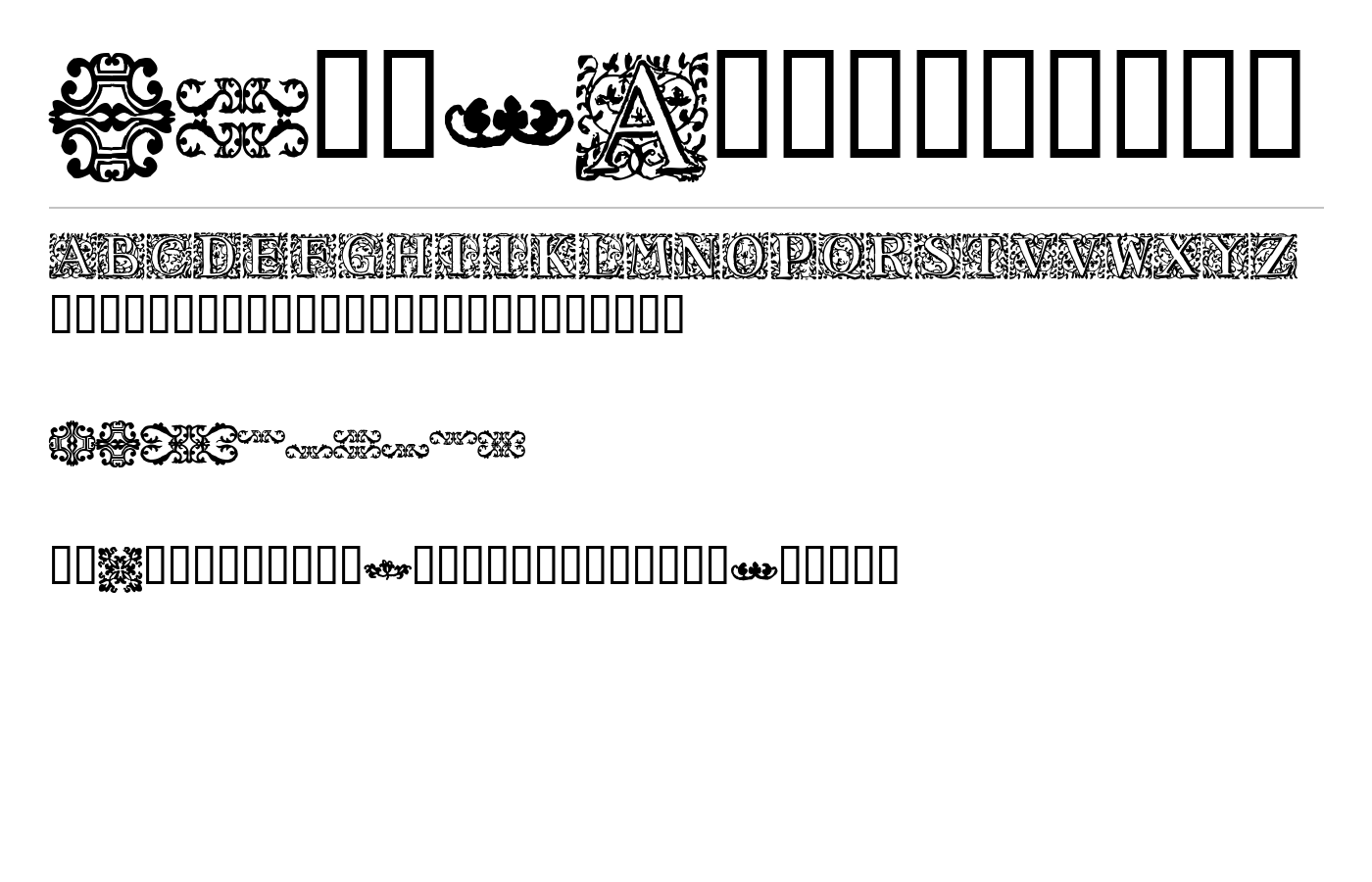
16th_Arabesques is a decorative serif font characterized by highly ornate, intricate patterns woven into each uppercase letter, creating a richly detailed, vintage feel. Its elaborate design with dense flourishes and symmetrical motifs makes it ideal for artistic and luxurious branding, decorative headlines, or invitations where a historical or elegant ambiance is desired. This font excels in display use, lending a regal and sophisticated touch that stands out in posters, logos, and packaging with a classic yet ornamental style.
16th_Arabesques Font
About 16th_Arabesques Font